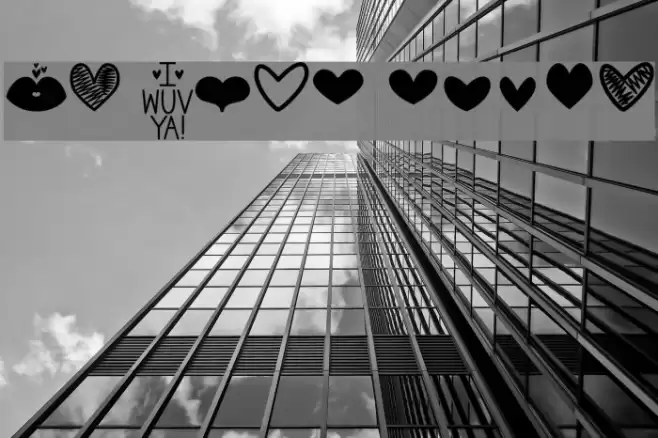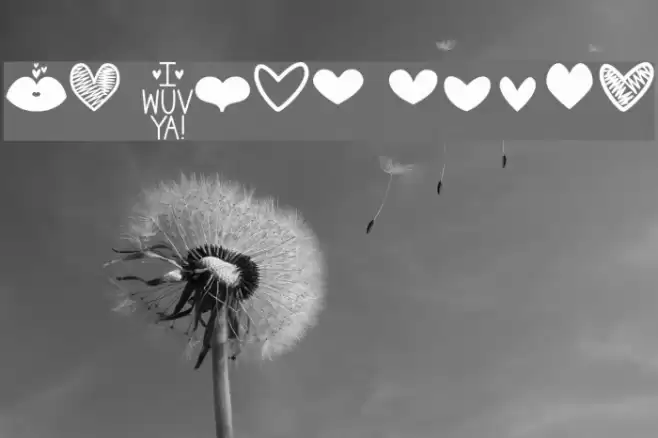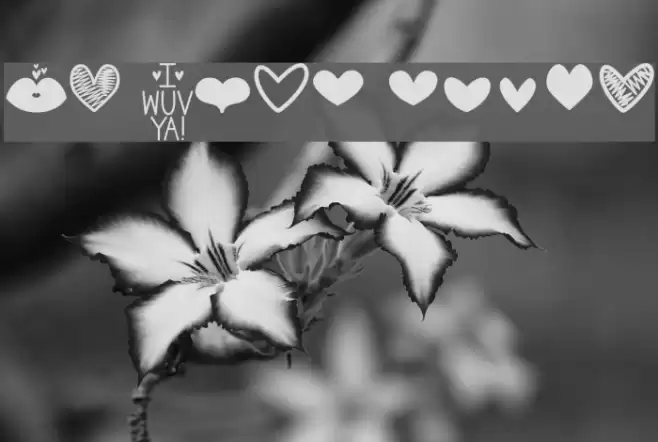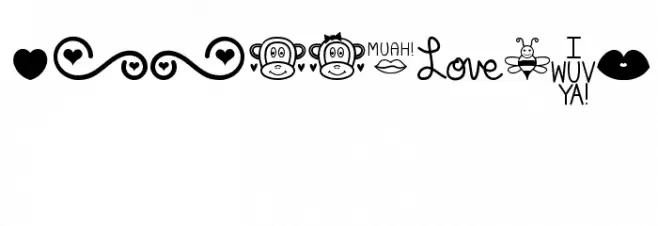
MF Love Dings Font
MF Love Dings Description
This decorative font is filled with playful and whimsical heart-themed symbols and illustrations. It features a variety of heart shapes, including solid, outlined, and textured designs, as well as charming elements like arrows, lips, and cute characters. The style is fun and lighthearted, perfect for adding a touch of romance or playfulness to any project. The font includes creative expressions like 'I WUV YA!' and 'MUAH!' that enhance its affectionate and friendly vibe. Its unique and artistic elements make it ideal for projects that aim to convey love, joy, and creativity.
A playful, heart-themed decorative font with whimsical symbols and expressions from Uncategorized fonts.
- Proposed Projects: Ideal for Valentine's Day cards, wedding invitations, love notes, scrapbooking, and playful graphic designs.
- Use Case: Logos, Greeting cards, Invitations